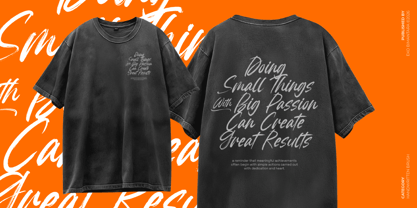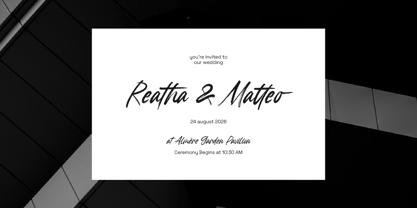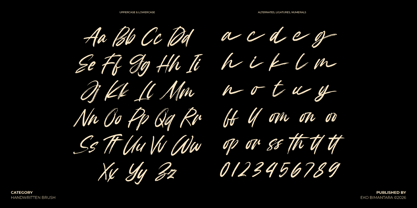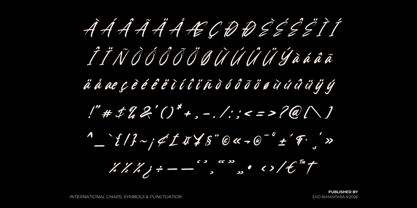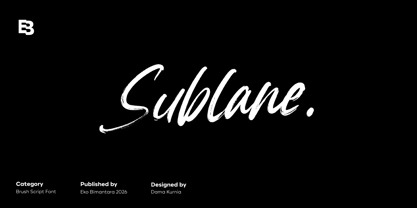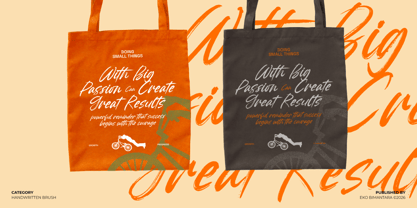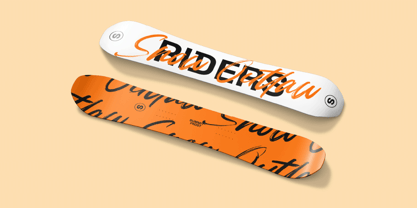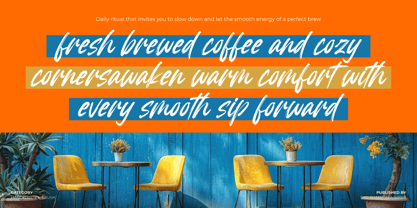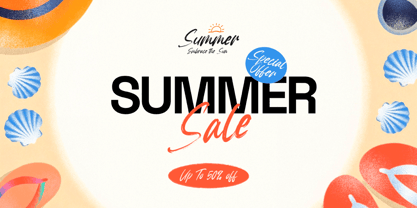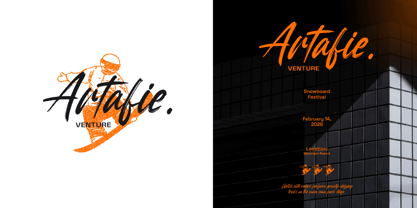
Sublane
by Eko Bimantara
The Sublane Font Family was designed by Eko Bimantara, Biyono Ibrahim and published by Eko Bimantara. Sublane contains 1 styles. More about this family
Sublane is a dynamic brush script typeface that captures the raw energy and expressive freedom of hand-painted lettering. Defined by its textured strokes, natural pressure variations, and slightly rugged edges, it conveys an authentic, handcrafted feel with a contemporary edge. The fluid letterforms and casual rhythm create a sense of movement and spontaneity, making it especially effective for branding, social media graphics, posters, and creative packaging. Sublane performs best in display settings, where its bold personality and artistic imperfections bring a striking, human touch to modern visual compositions.
Designers: Eko Bimantara, Biyono Ibrahim
Foundry: Eko Bimantara